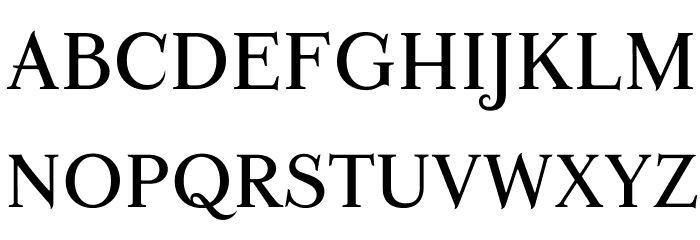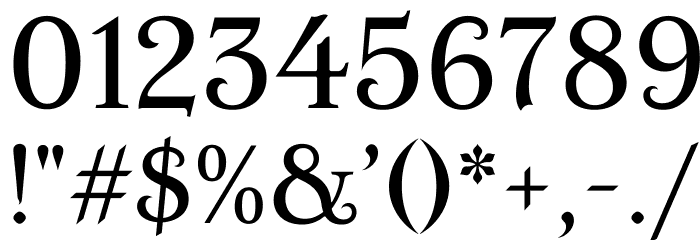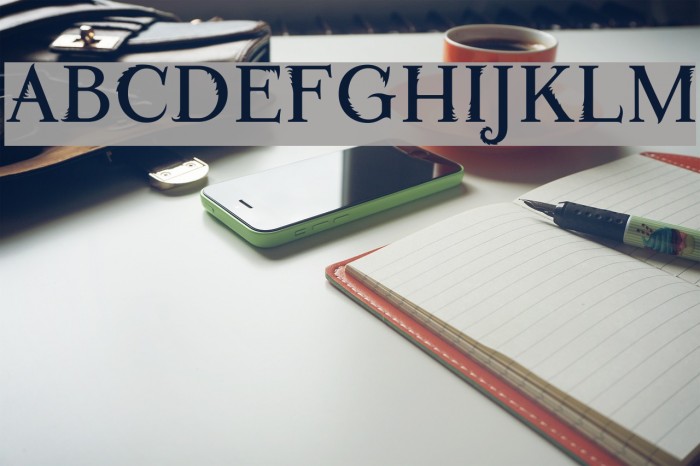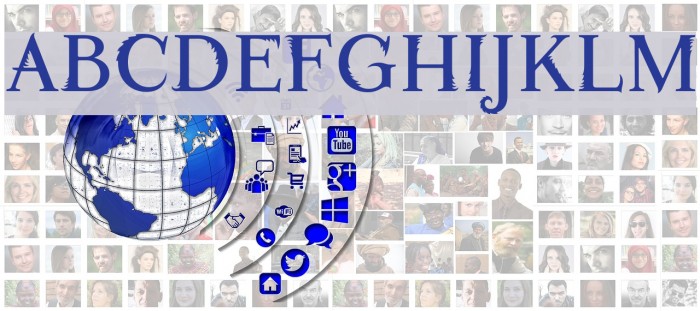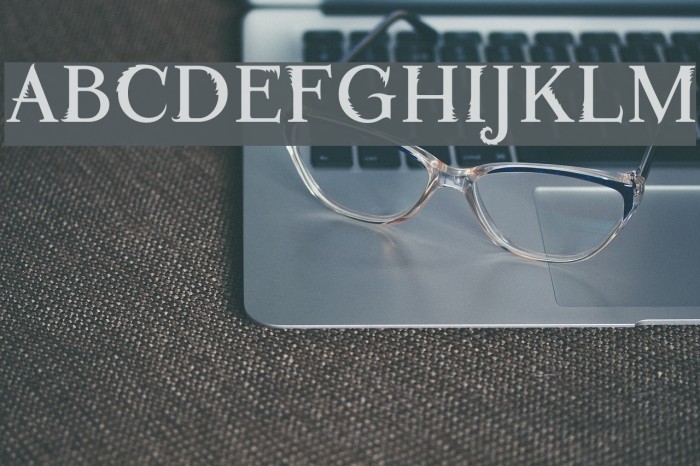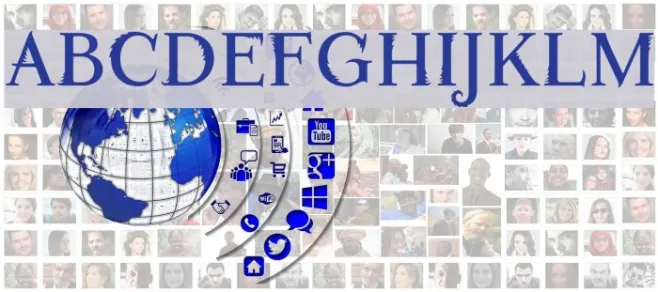
Fontastic Beast Font
This font features a unique blend of classic serif elements with a modern twist. The uppercase letters have a distinctive flair, with sharp, pointed serifs that give them an edgy and dynamic appearance. The lowercase letters maintain a more traditional serif style, providing a balanced contrast. The numerals are bold and clear, ensuring readability while maintaining the font's overall aesthetic. Special characters are designed with attention to detail, complementing the font's style. This font is perfect for projects that require a touch of elegance with a modern edge.
A modern serif font with sharp, edgy serifs and a balanced contrast.
- Proposed Projects: Ideal for branding, editorial design, book covers, and high-end product packaging.